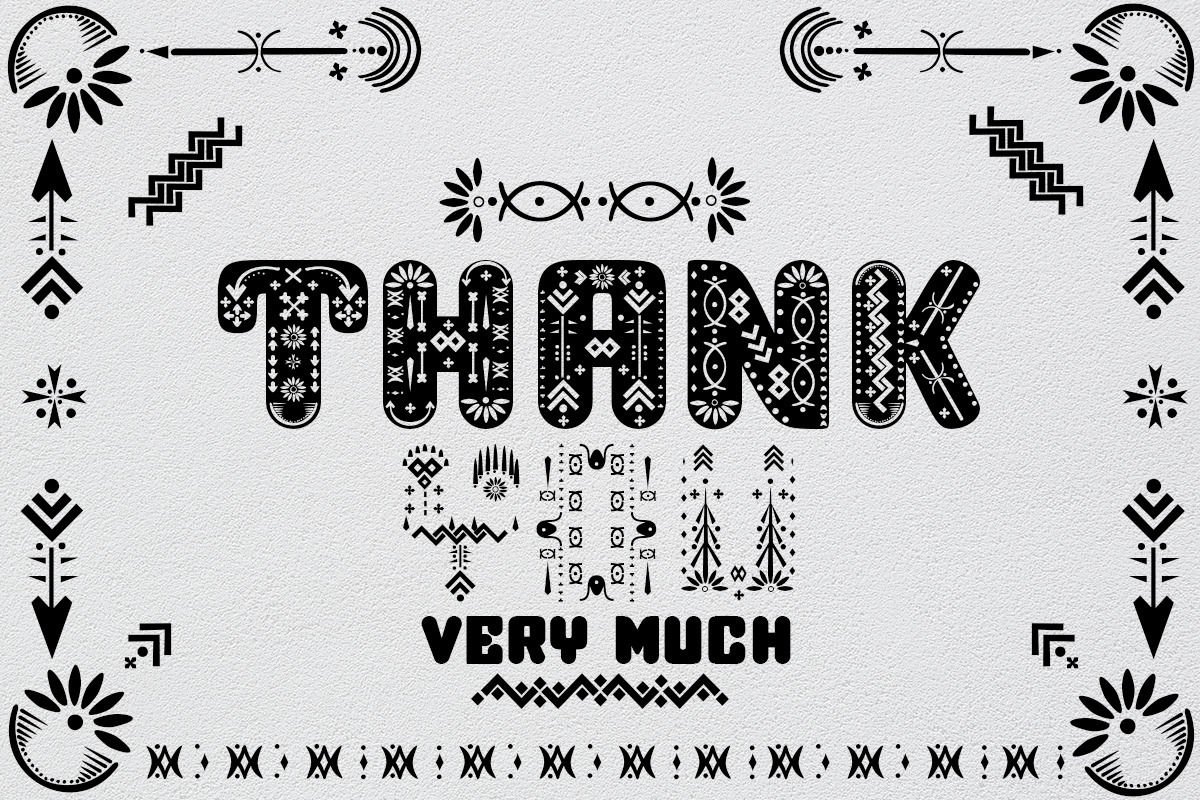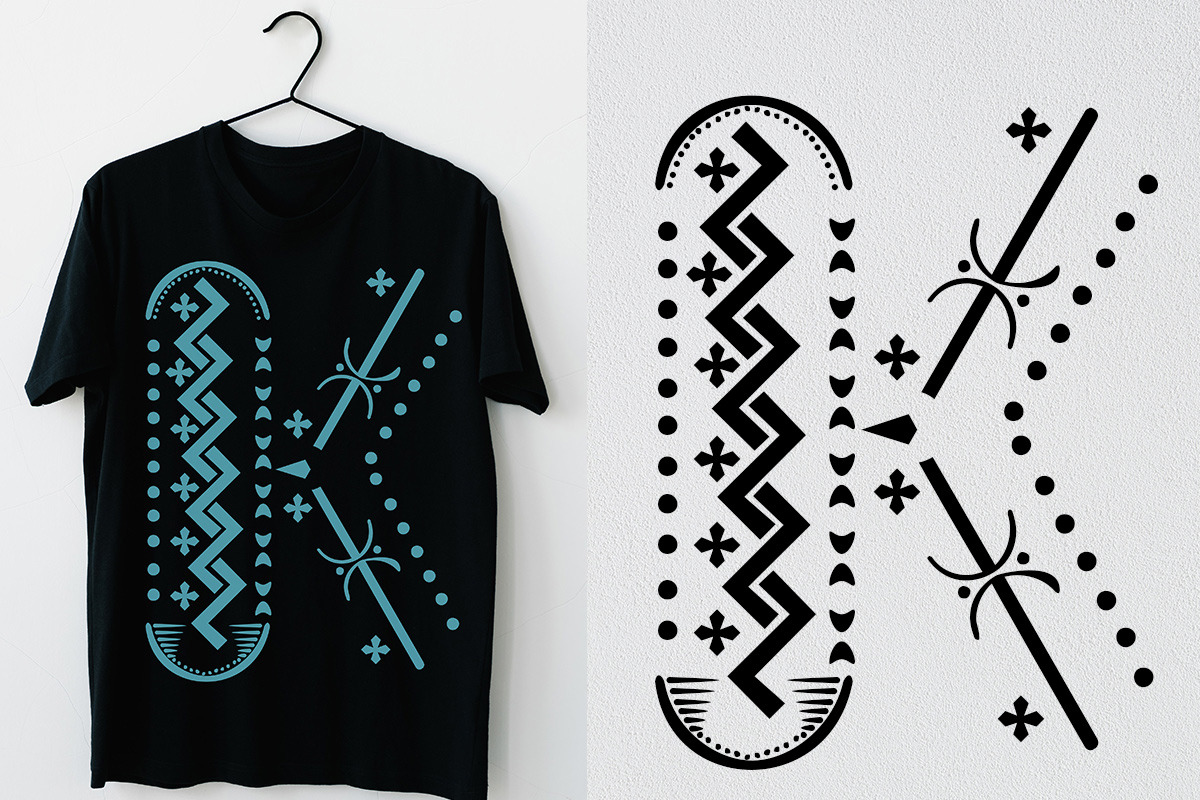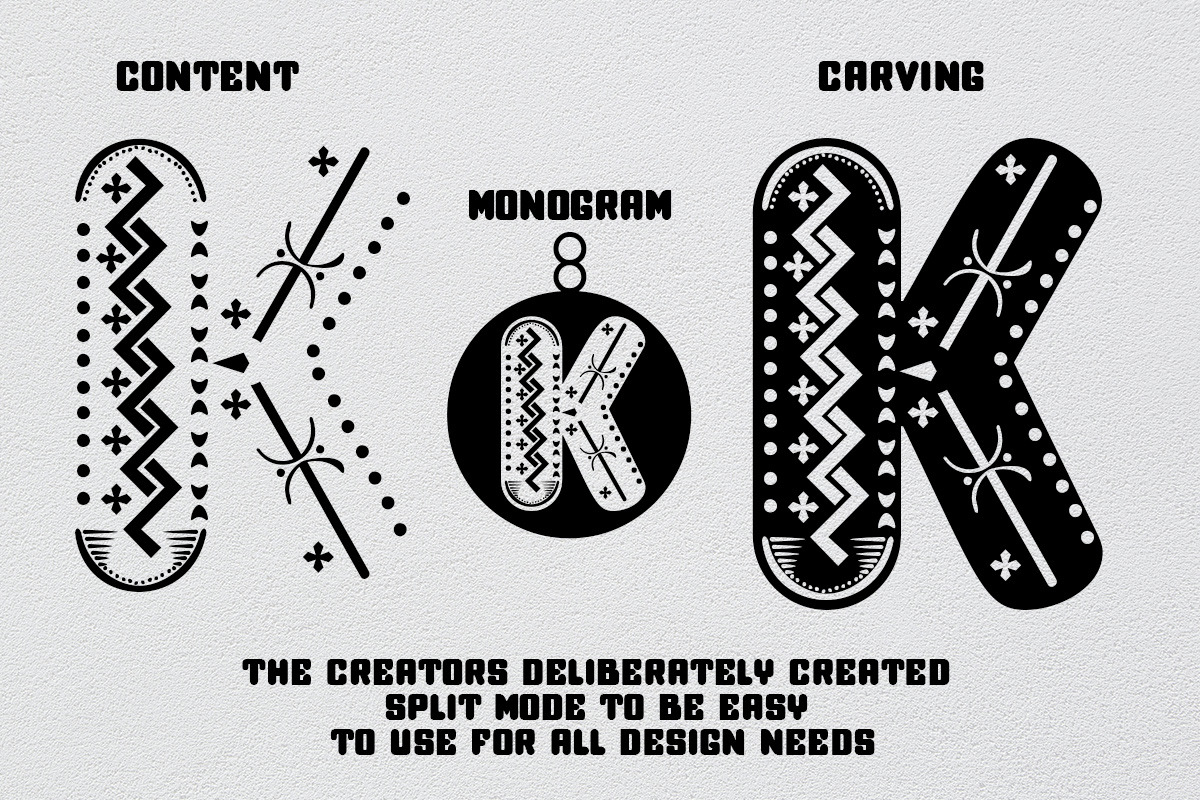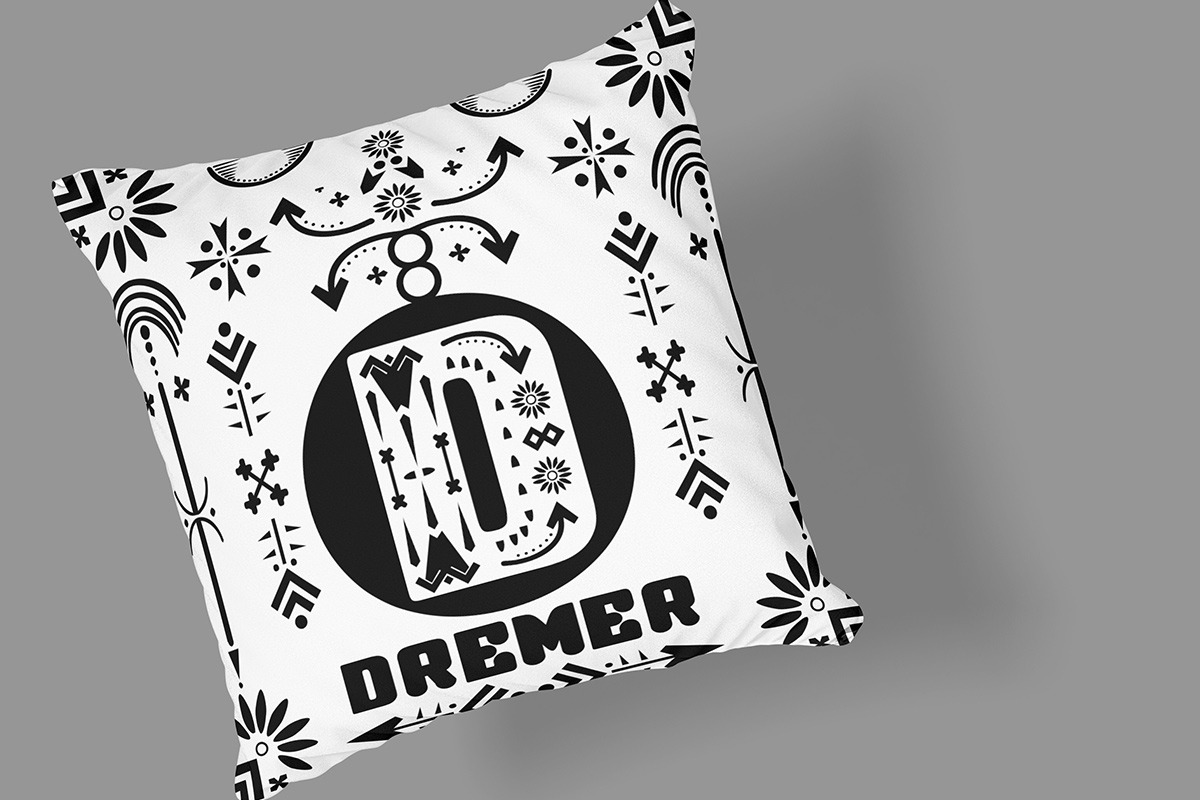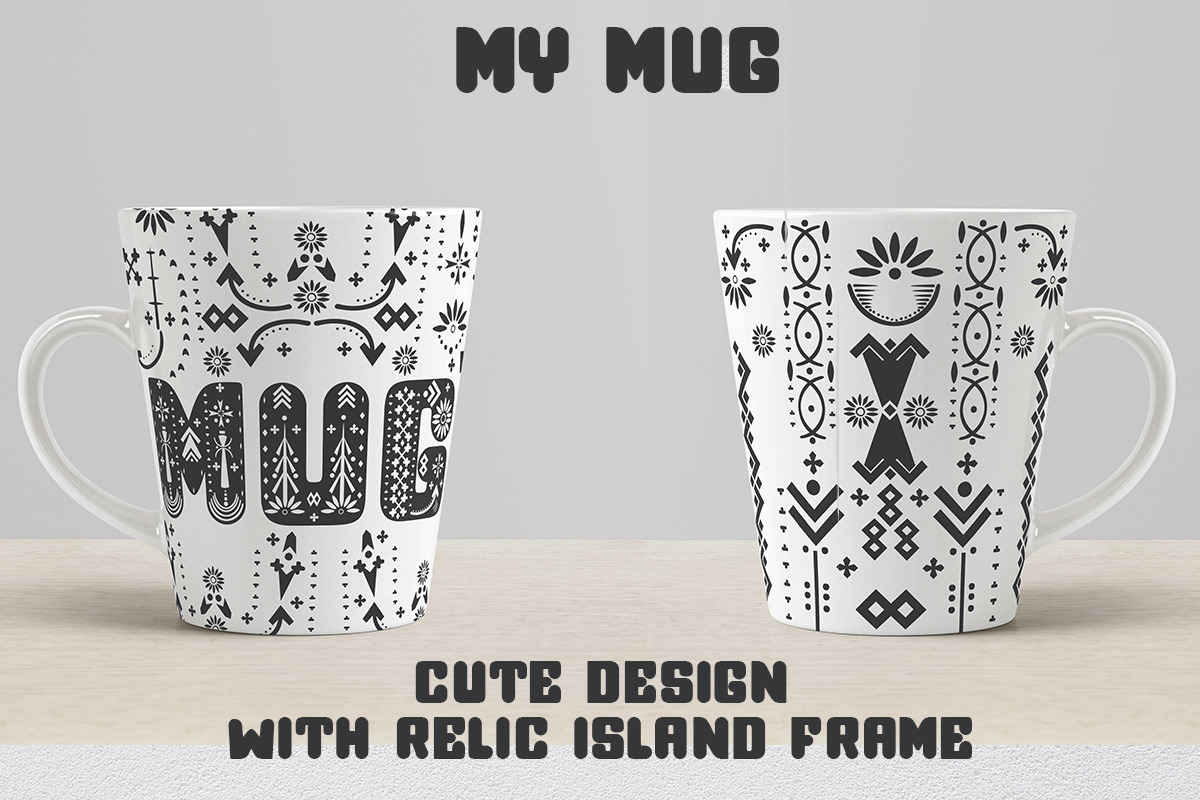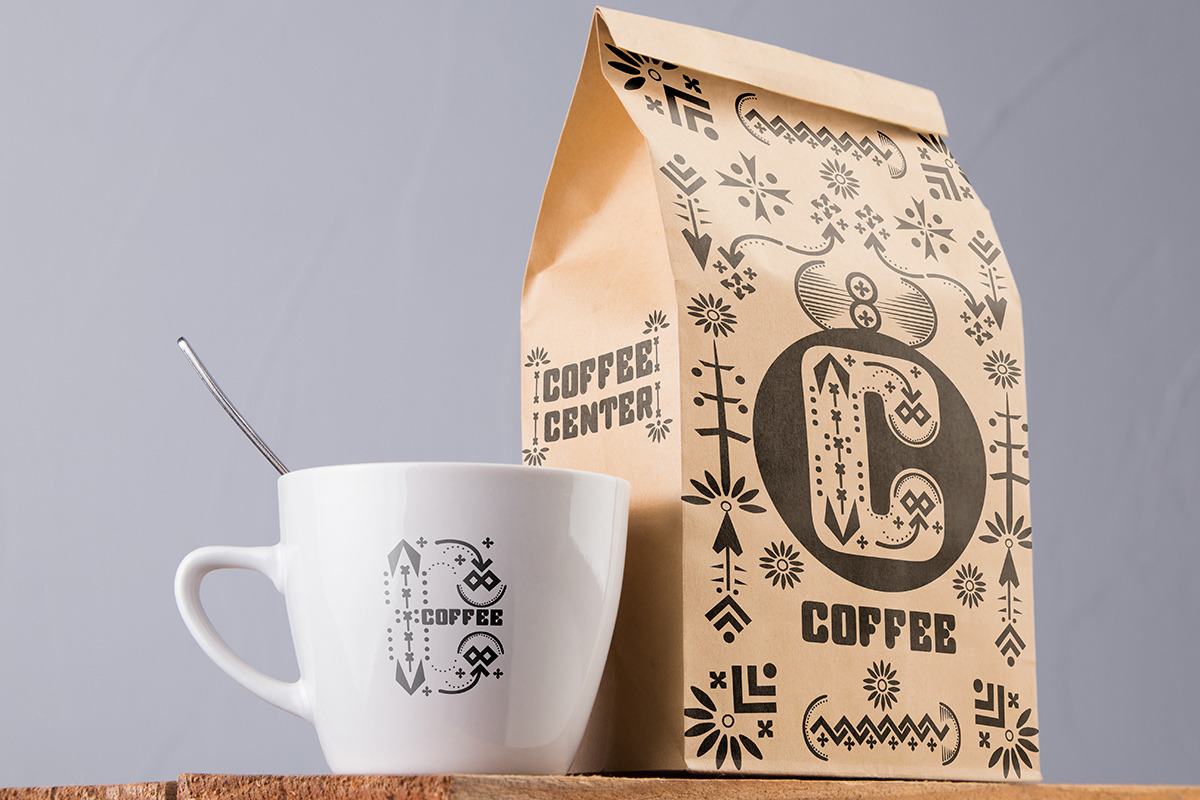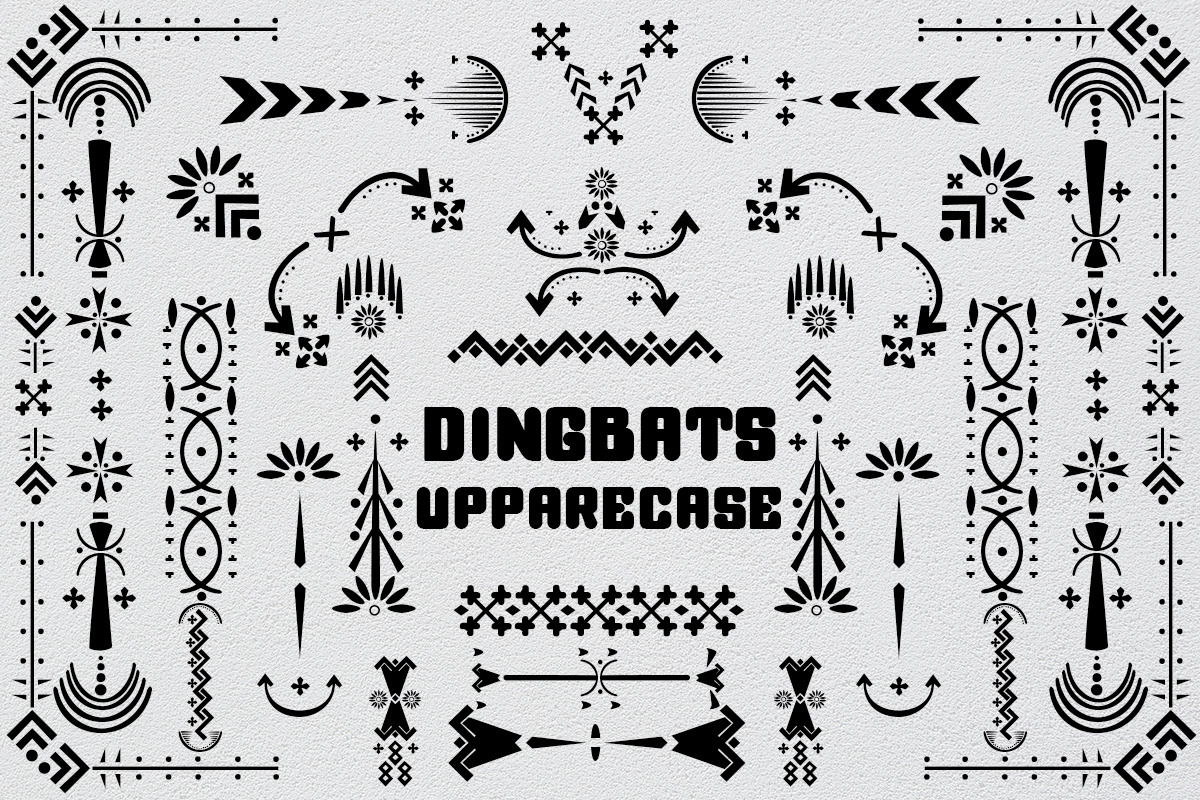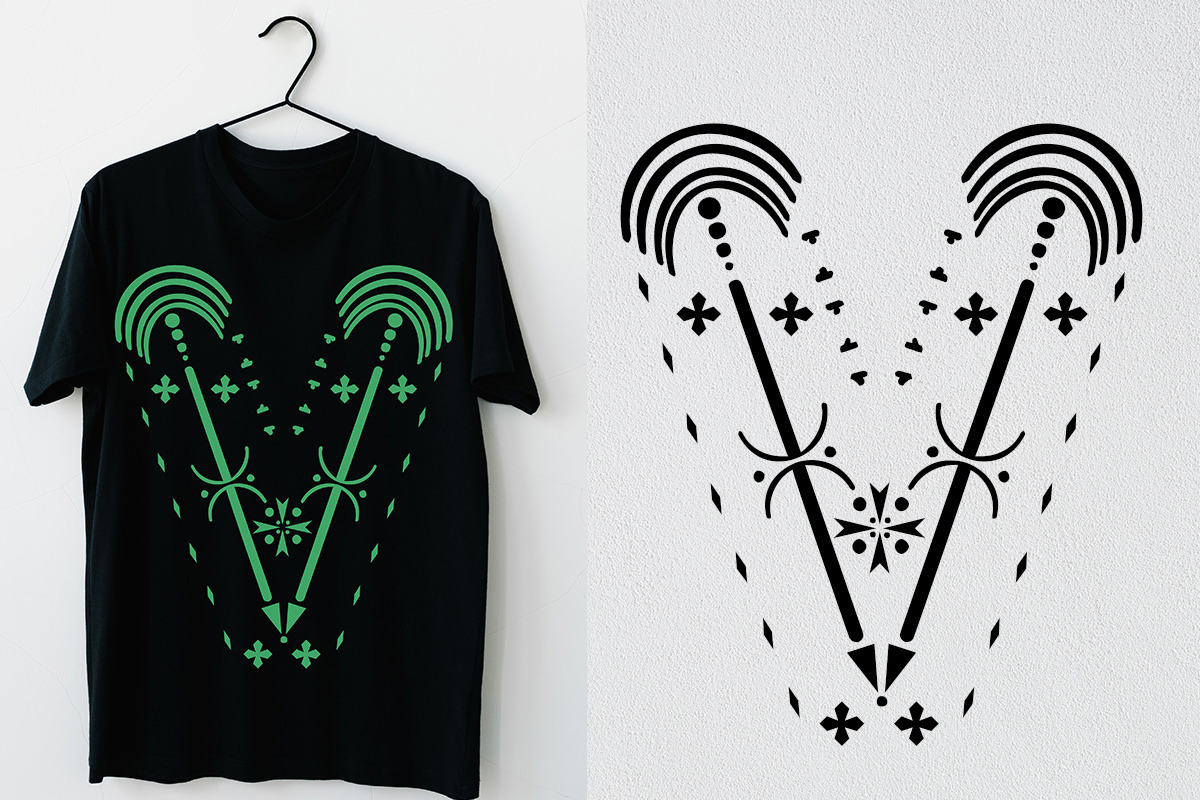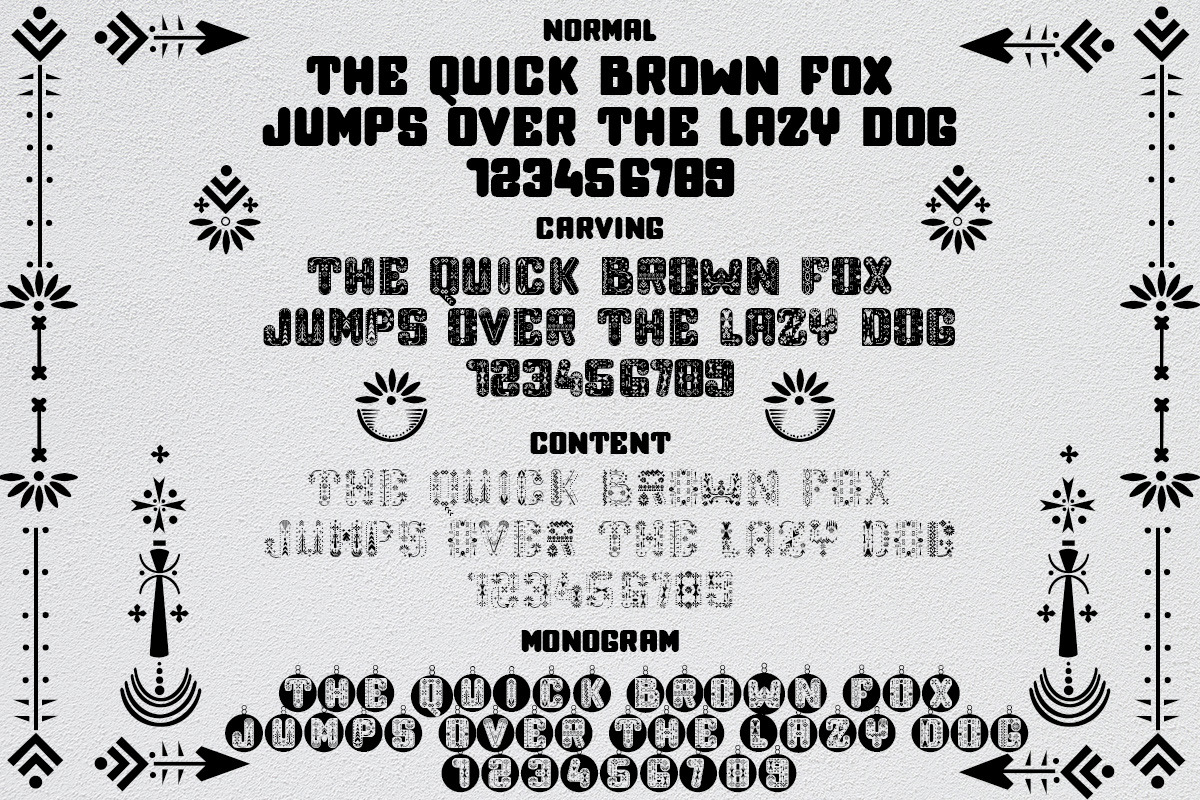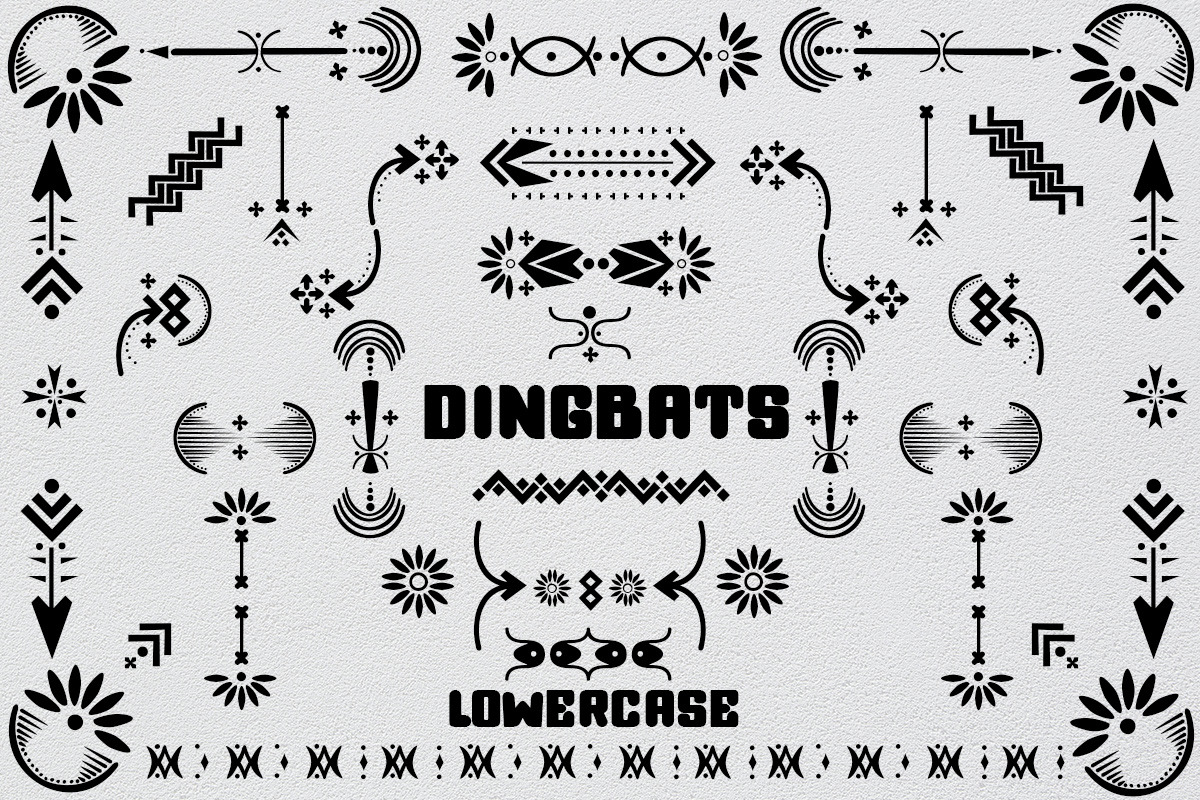
Relic Island 2
Relic Island 2 this is a unique font design, this design will take you to the old world where the old times used to be great art this design also seems to conclude that we are in a more modern world Memories and relics of the past cannot be separated from our current creations
Relic Island 2 inspired by some ancient relics which I put a touch of design font into it make sure you will try it and see how it will make a cheerful impression on your heart as an antique collector